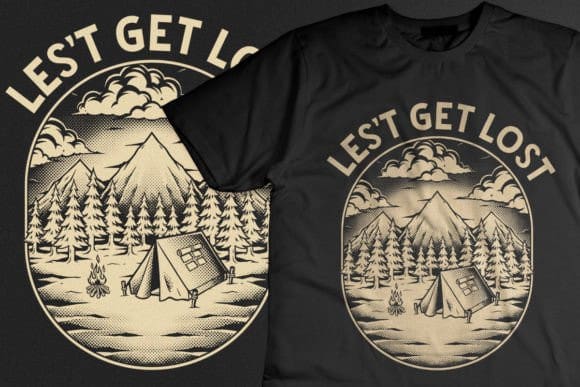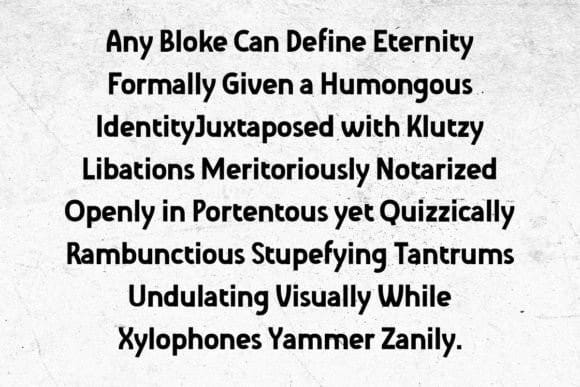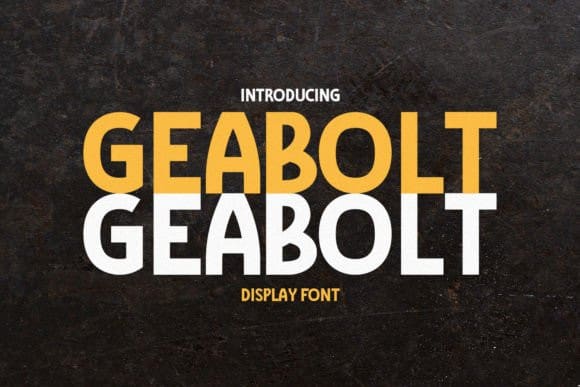
Geabolt Font
Geabolt Font is an industrial typeface with a masculine style, suitable for your design needs that need a classic, vintage touch, but still modern. This font is perfect for any logo, product label, poster, or design.